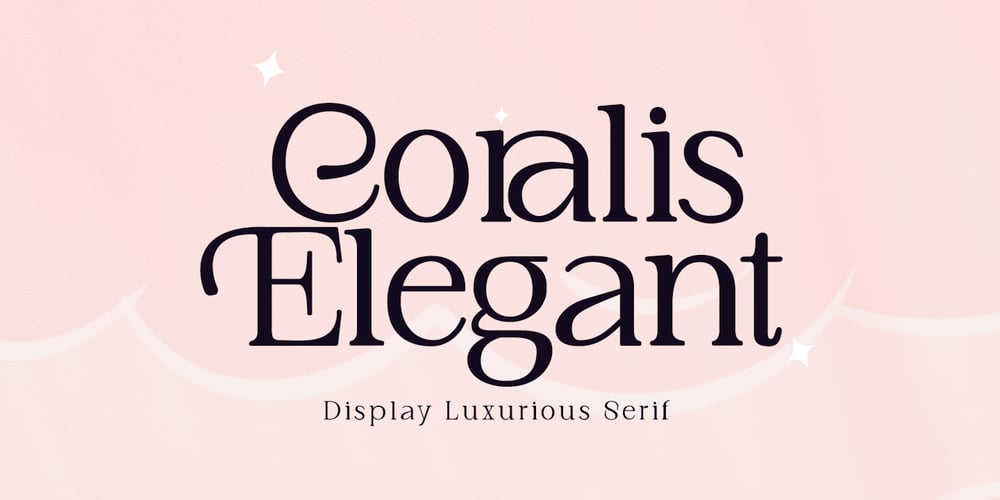
Coralis Elegant Font Family was designed by khaidir and published by Gatype. Coralis Elegant contains 1 styles and family package options. Coralis Elegant serif with a creative atmosphere and perfect shape, inspired by today’s beautiful Display serifs. thick,balanced and varied, born for luxury and beauty. In my example I show how this script can be used. It’s great for logotypes, branding, wedding invitations, romantic cards, retro labels, packaging, name spelling and more.Coralis Elegant comes with beautiful uppercase and lowercase letters, numbers, and punctuation. In addition to the main character set, there are many alternative characters, start and end sweeps.. Multilingual.. SWASH.. Ligature.. Style Set.If you have any questions please feel free to contact me!Thank You,